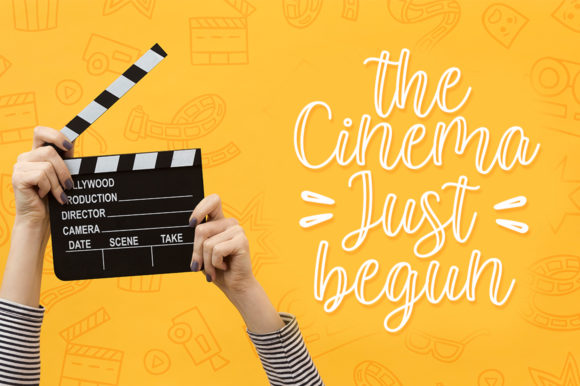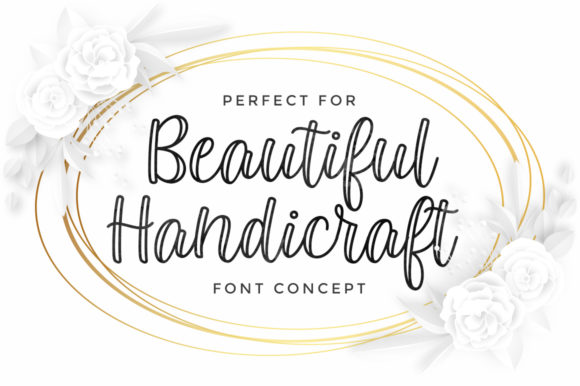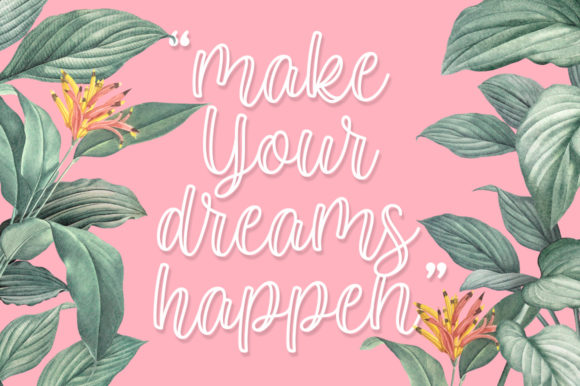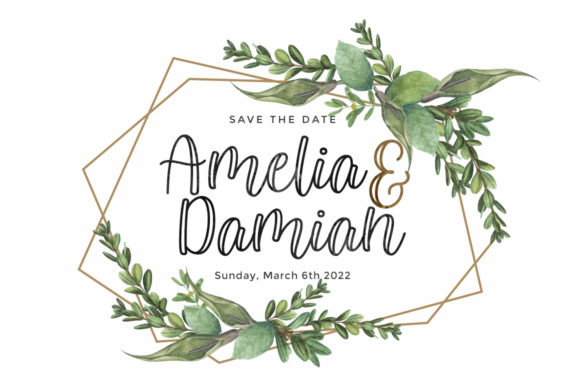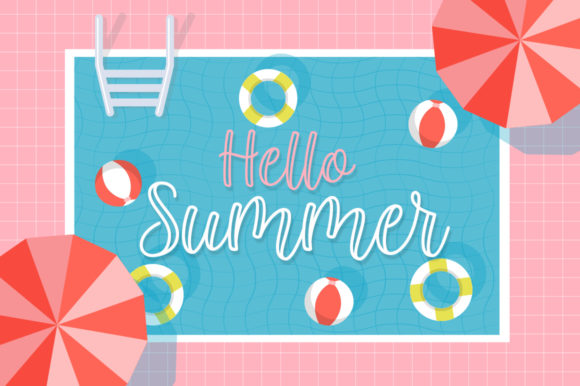
Introduction to Kembara Cinta Outline Font
Kembara Cinta Outline is a casual, fun handwritten font.
Clean and a little bit quirky, this font is the perfect fit for all of your logos, branding, social media, and crafty DIY projects .